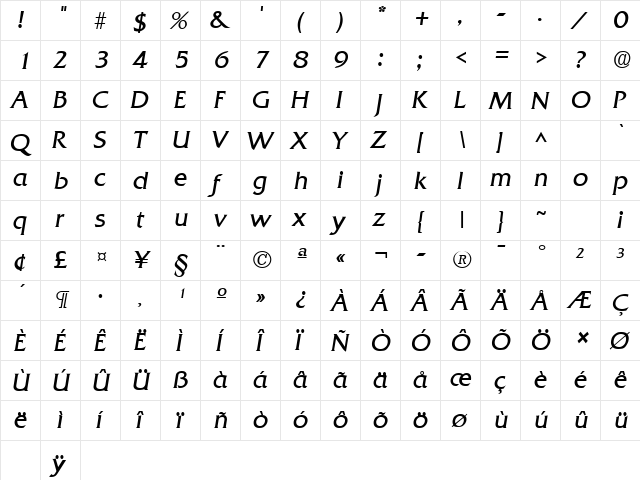
Quadrat Italic
Design Context for Quadrat Typeface
Quadrat offers clean, dependable letterforms without strong stylistic allegiance, making it a practical choice for designers who need flexibility. The slanted form adds forward momentum and visual energy.
Pro Tip: Try Quadrat for annotation and caption copy alongside an upright companion — the contrast in angle creates a dynamic but ordered typographic system.